Helvetica Now & Didot LT Font Pairing
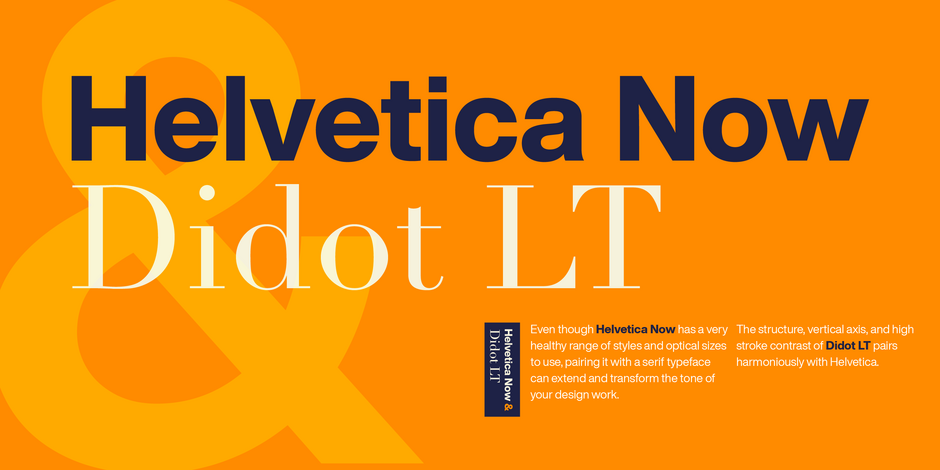
Dressed Up
Helvetica Now’s Micro designs are simplified and exaggerated to maintain the impression of Helvetica in tiny type. There’s also an extensive set of alternates, which allow designers the opportunity to experiment with and adapt Helvetica’s tone of voice. The new Condensed weights put more type into smaller spaces—for intense emphasis, sophisticated contrast, or just everyday space-fitting. “For more than six decades, Helvetica has been the essential typeface,” says Monotype Type Director Charles Nix. “The release of Helvetica Now insures that it will be a typographic force for decades to come.”
The strong clear forms of Didot LT’s alphabet display objective, rational characteristics and are representative of the time and philosophy of the Enlightenment. Adrian Frutiger’s Didot is a sensitive interpretation of the French Modern Face Didot. Another model for this design is the Henriade, an historical printing of the original Didot from 1818. The font Didot gives text a classic and elegant feel.